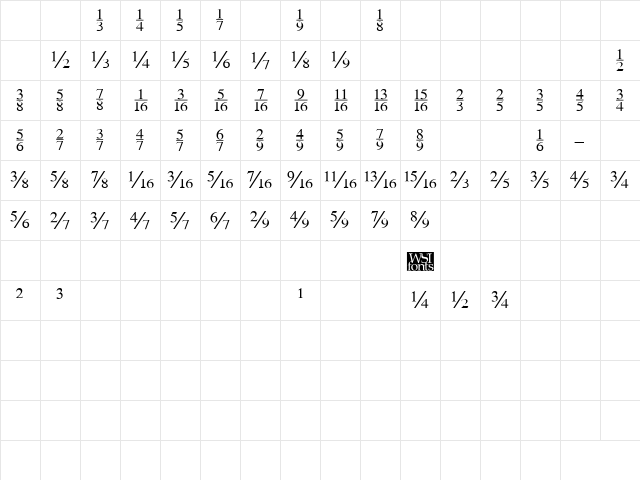
FractionsRoman Regular
Design Context for FractionsRoman Typeface
FractionsRoman offers clean, dependable letterforms without strong stylistic allegiance, making it a practical choice for designers who need flexibility.
Pro Tip: Use FractionsRoman in both headline and body roles to test its range before committing to a single application.